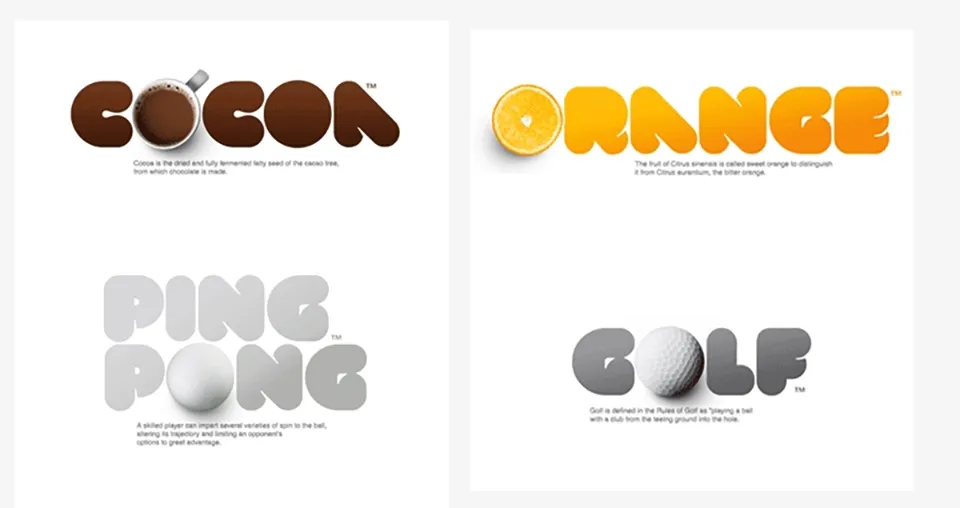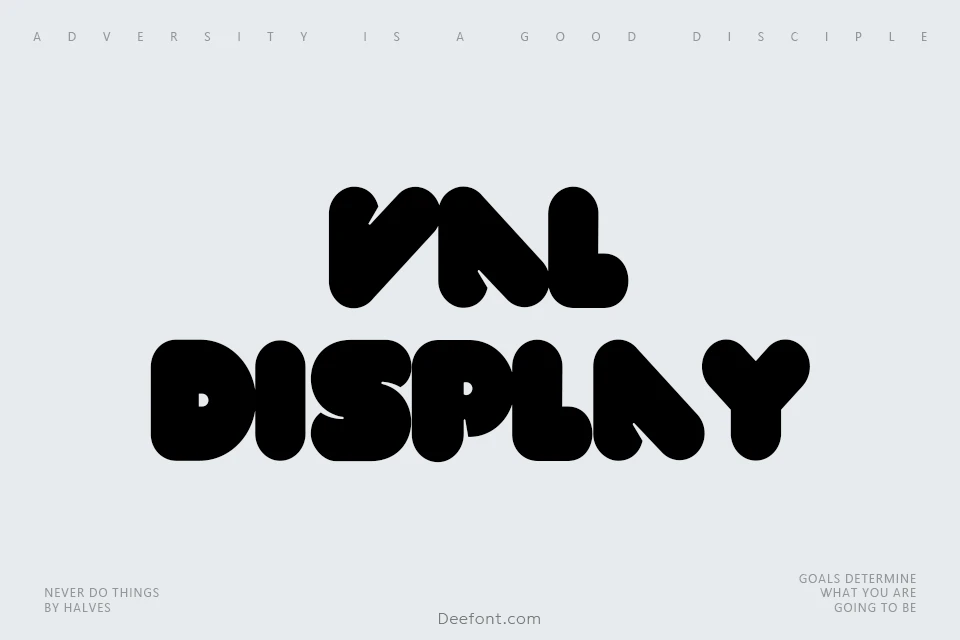
Val Display Font
Val Display Font is a distinctive and playful display typeface designed to shine in signage, logos, headlines, or short to medium-length texts where a unique and eye-catching look is desired. Its rounded, bubbly forms and novelty style make it perfect for creative projects that need a touch of fun and personality.